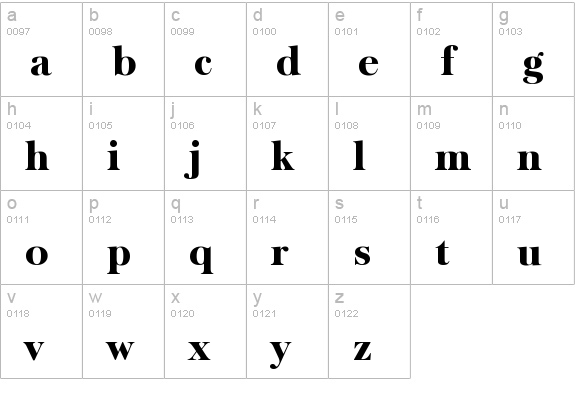
BaskervilleSerial-Heavy-Regular is a heavy, high-impact variant in the BaskervilleSerial typeface family \xE2\x80\x94 well suited to high-impact headlines, posters, and display advertising.
BaskervilleSerial-Heavy-Regular font is a classic and timeless typeface that exudes elegance and sophistication. With its bold and strong appearance, this font is perfect for making a statement in headlines, titles, and logos. The sharp serifs and clean lines of BaskervilleSerial-Heavy-Regular font add a touch of refinement to any design project. The best part is that BaskervilleSerial-Heavy-Regular font is available for free download at FontsMarket.com. Whether you are a designer looking to enhance your creations or a business owner seeking a professional font for branding, BaskervilleSerial-Heavy-Regular font is a fantastic choice. Download this font today and elevate your designs with its unparalleled style and versatility.